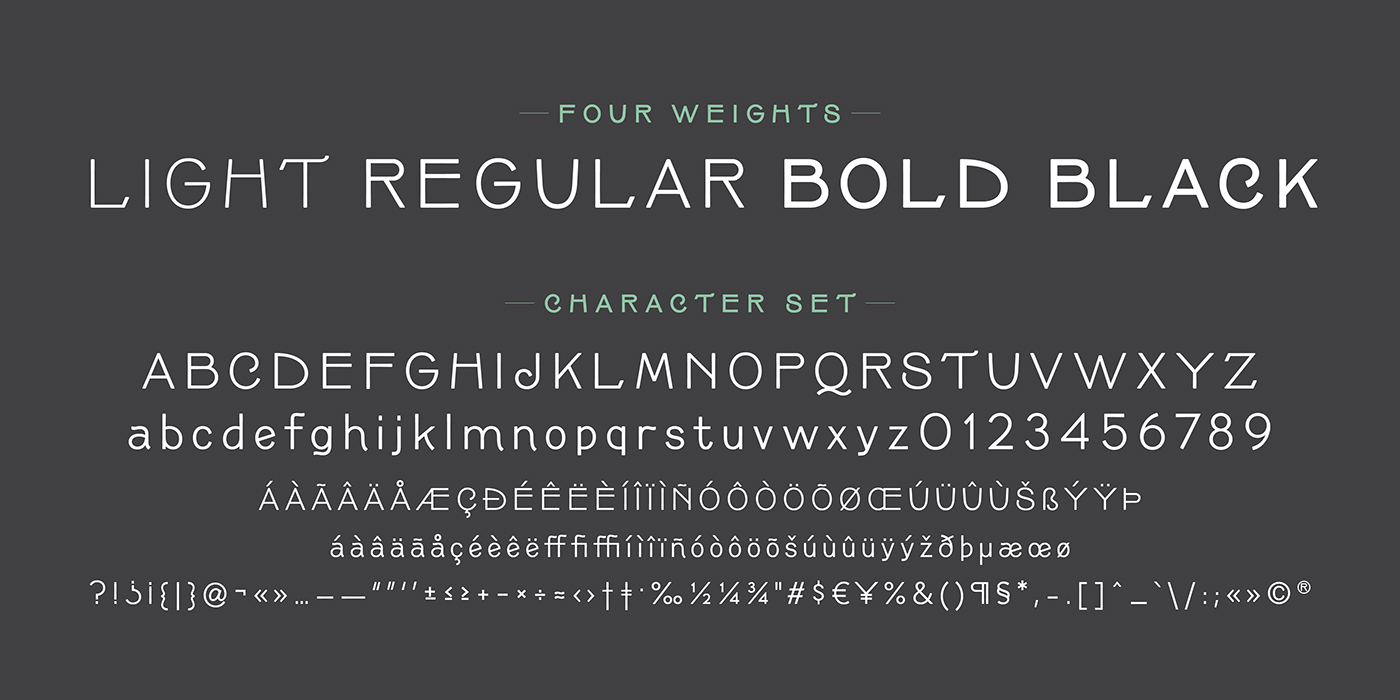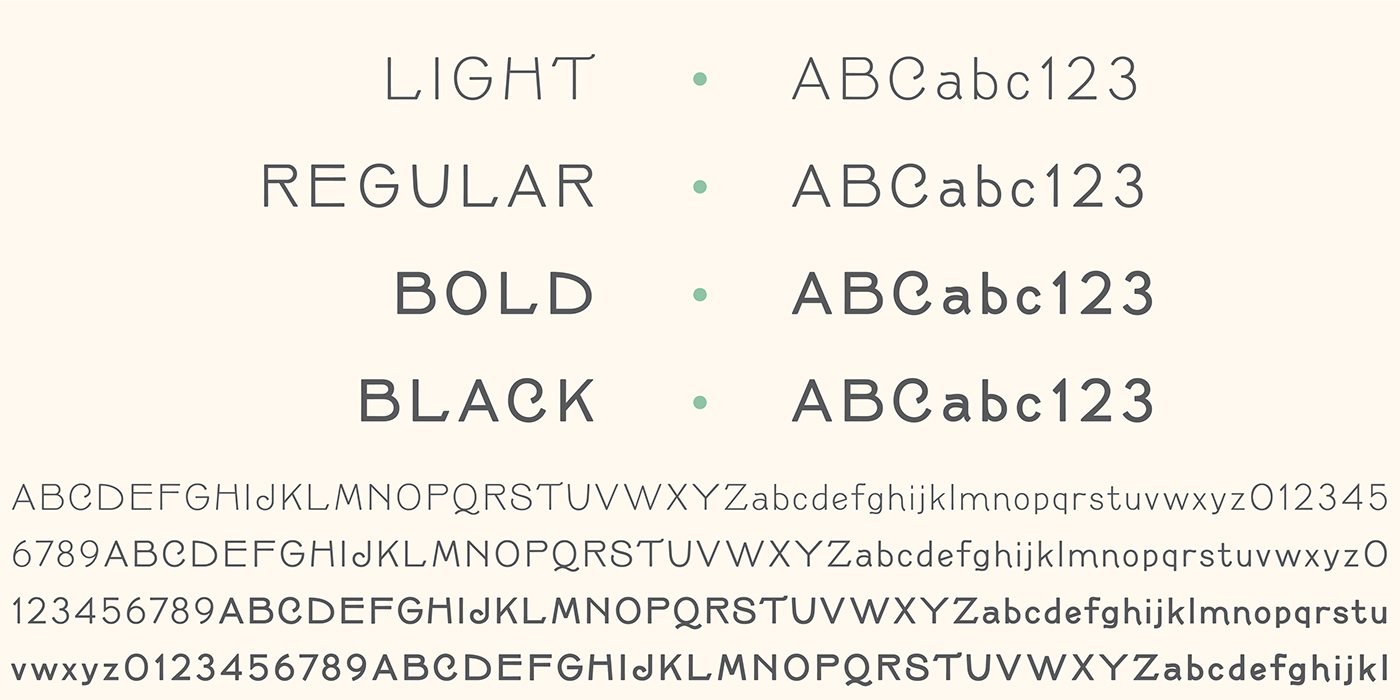
Tasso Two is a new typeface, inspired by and redrawn from my revival of a face originally found in an Barnhardt Brothers & Spindler specimen dated 1891. I updated and modernized the shapes while retaining many of the quirky Nouveau-esque aspects.
In Tasso Two, I pivoted the intention of the face and decided to do an “inspired by” as opposed to a revival, which allowed me to straighten out and modernize some of the wackier characters. I redrew the whole face, added the missing characters and added in 3 more weights. All are kerned and programed with ligatures and alternates.
Tasso Two is a geometric sans serif face with Art Nouveau-esque quirks, for use in text and display. Inspired by a face originally drawn in the 1890s, Tasso Two balances contemporary ideals with turn-of the-century eccentricities to create a unique impression.